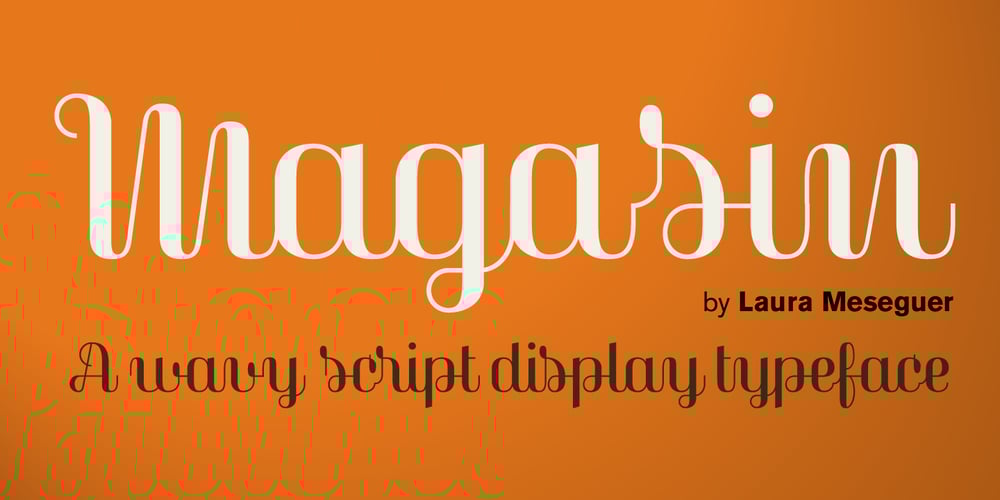
Magasin
Magasin font
Magasin Font Family was designed by Laura Meseguer and published by Type-Ø-Tones. Magasin contains 1 styles and family package options. Magasin is a high contrast display typeface inspired by the pointed pen calligraphy, yet with a retro-chic twist. It combines a sense of script with geometric and slightly condensed structure resulting in idiosyncratic curves softly connecting the vertical elegance of its forms, ideally suited to use at large sizes in headlines for magazines, posters or packaging. Magasin boasts a rich set of OpenType features that provide a better flow such as Ligatures, Stylistic Alternates, Contextual Alternates, and Final Forms. It also includes a set of capital Swashes. Please check the ‘Read me’ file located in the gallery for more specifications.